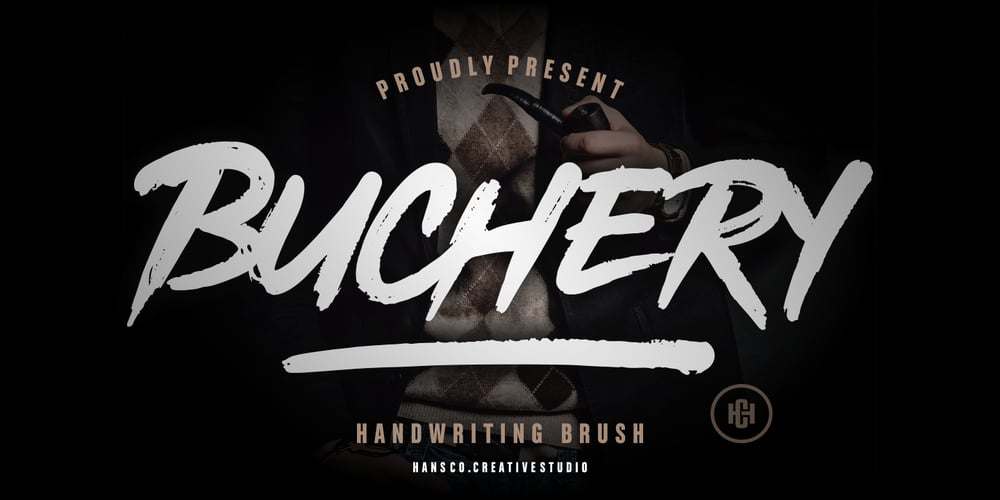
Buchery Font Family was designed by Burhan Afif and published by HansCo. Buchery contains 1 styles and family package options. Buchery is handwritten bold and rough font with dry brush texture. This texture is very detailed. Buchery is suitable for logos, shirts, fashion, blogs, websites, product branding, posters, flyers, any print template or for text overlay to any background image. Alternative and swash characters are also available. If you use Adobe / Corel Draw you just block one of the letters / numbers (for swash) and an arrow will appear under the letter, and you can replace it with alternative characters.